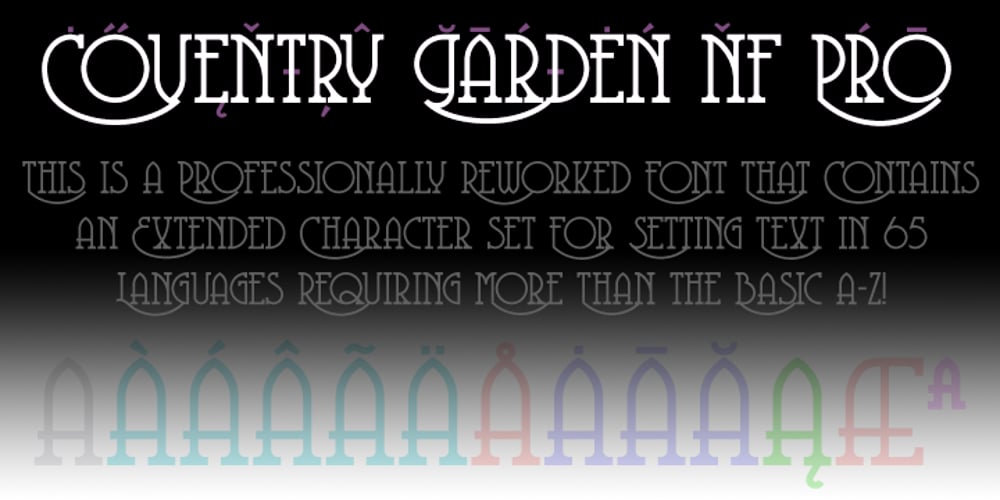
Coventry Garden NF Pro Font Family was designed by Nick Curtis, Roger S. Nelsson and published by CheapProFonts. Coventry Garden NF Pro contains 1 styles and family package options. I have improved and added diacritics to this elegant alphabet, and generally cleaned it up to a professional standard. It is well suited to logos, menus, invitations and other things wanting a touch of elegance. Nick Curtis says: “I came across this particular treatment for swash caps in an old book on letterhead design. The original had been handlettered, but I though it might be convenient to have a ready-made font to accomplish the same effect, and here it is. As an extra added feature, the “§” sign is an ampersand with a long tail.” ALL fonts from CheapProFonts have very extensive language support: They contain some unusual diacritic letters (some of which are contained in the Latin Extended-B Unicode block) supporting: Cornish, Filipino (Tagalog), Guarani, Luxembourgian, Malagasy, Romanian, Ulithian and Welsh. They also contain all glyphs in the Latin Extended-A Unicode block (which among others cover the Central European and Baltic areas) supporting: Afrikaans, Belarusian (Lacinka), Bosnian, Catalan, Chichewa, Croatian, Czech, Dutch, Esperanto, Greenlandic, Hungarian, Kashubian, Kurdish (Kurmanji), Latvian, Lithuanian, Maltese, Maori, Polish, Saami (Inari), Saami (North), Serbian (latin), Slovak(ian), Slovene, Sorbian (Lower), Sorbian (Upper), Turkish and Turkmen. And they of course contain all the usual “western” glyphs supporting: Albanian, Basque, Breton, Chamorro, Danish, Estonian, Faroese, Finnish, French, Frisian, Galican, German, Icelandic, Indonesian, Irish (Gaelic), Italian, Northern Sotho, Norwegian, Occitan, Portuguese, Rhaeto-Romance, Sami (Lule), Sami (South), Scots (Gaelic), Spanish, Swedish, Tswana, Walloon and Yapese.